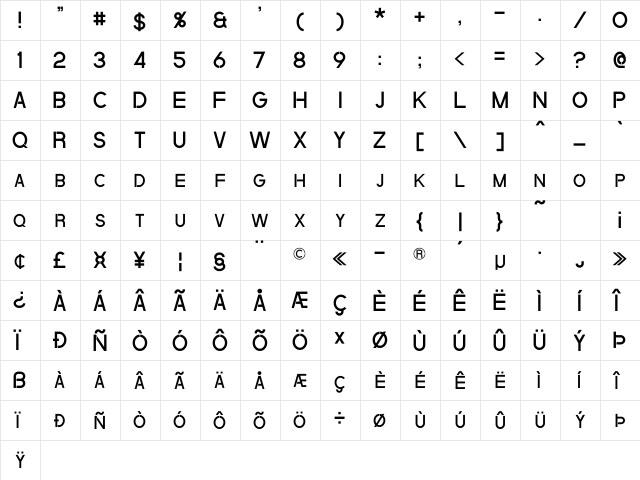
Quantum Regular
| Foundry | Neale Davidson |
| Designer | Neale Davidson |
Design Context for Quantum Typeface
Quantum is a composed and adaptable typeface that performs quietly and consistently across a wide range of design contexts.